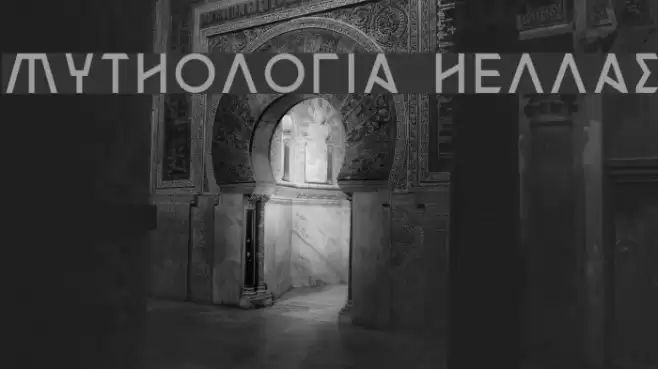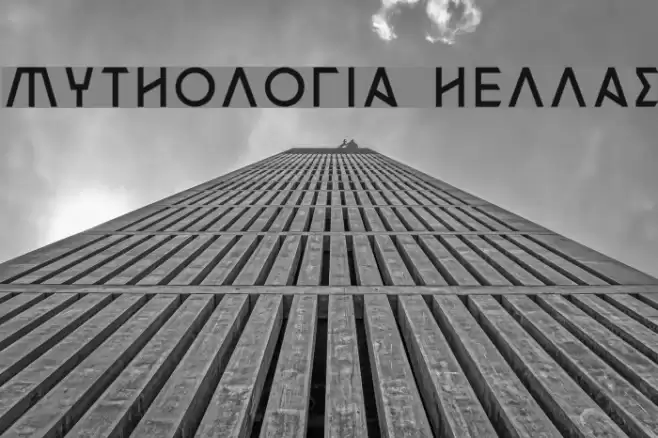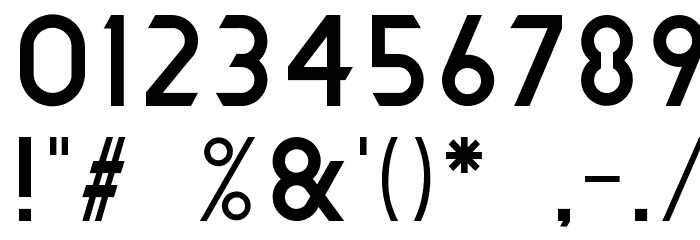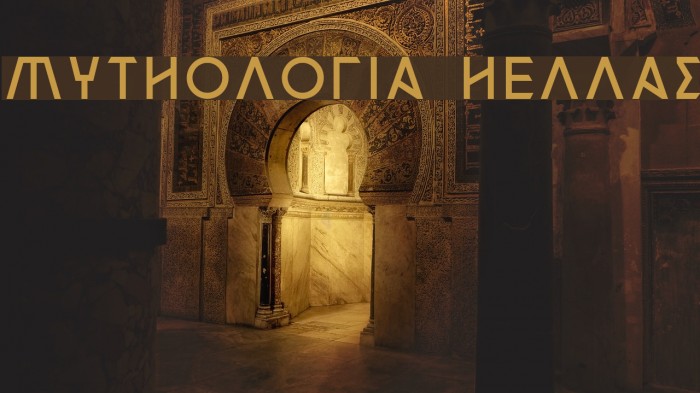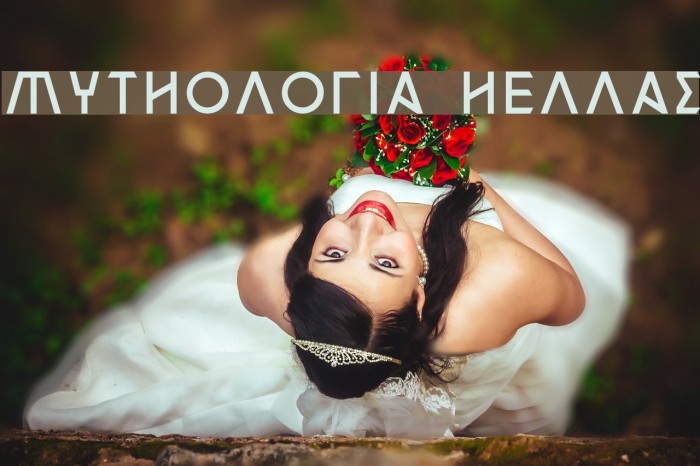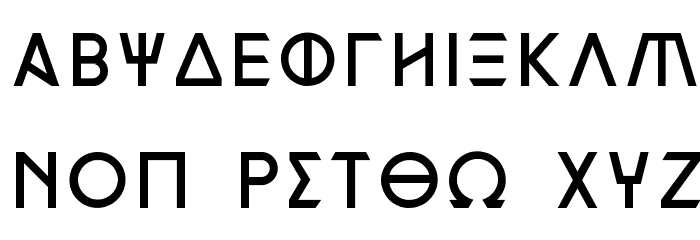
Mythologia Hellas Font
Mythologia Hellas Description
This font features a modern and geometric design, characterized by clean lines and a structured appearance. The uppercase letters are bold and uniform, with a distinct emphasis on symmetry and balance. The numerals are equally bold, maintaining the geometric theme with consistent stroke widths. Special characters are designed to complement the overall style, ensuring a cohesive look across all elements. The font's simplicity and clarity make it suitable for a variety of applications, from digital to print media.
A modern, geometric font with bold, clean lines and a structured appearance from Uncategorized fonts.
- Proposed Projects: Ideal for branding, logos, headlines, and digital media projects that require a modern and clean aesthetic.
- Overall Style: Modern, Geometric
- Use Case: Headlines, Logos, Branding